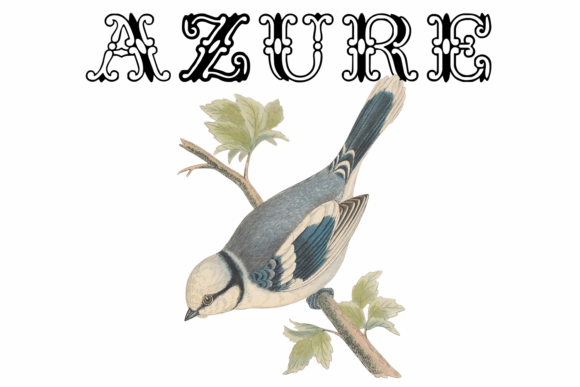
Fontaniolo Family Font
Welcome to the Fontaniolo Family Font collection, a vintage font with a classic twist. Crafted by the talented designers at Intellecta Design, this font family will transport you back to a bygone era of sophistication and charm.
With four distinct styles to choose from, Fontaniolo empowers you to unleash your creativity and add a touch of timeless elegance to any project. Whether you're crafting a captivating logo, an eye-catching poster, or a heartfelt invitation, Fontaniolo will effortlessly elevate your designs.
Indulge in the nostalgia of the past with the Regular style, or embrace the carefree spirit of the 1970s with the groovy Inline style. Make a bold statement with the striking Shadow style, or let the graceful Swash style add a touch of playful flair to your designs.
Every letter and symbol in the Fontaniolo Family Font collection has been meticulously designed to evoke the timeless allure of the past. Its smooth curves and elegant flourishes will instantly transform your words into works of art.